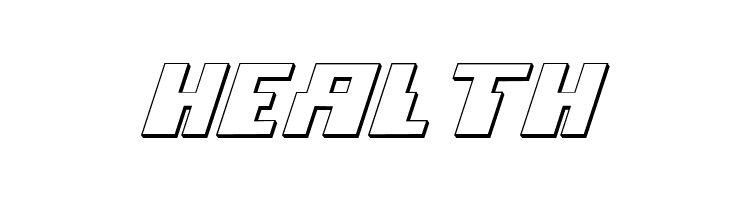
Planetary Orbiter Bold Italic Font
A bold, 3D italic font with a geometric and futuristic style.
A bold, geometric font with a modern, digital aesthetic.
A bold, expanded, and italicized font with a futuristic and angular design.
A futuristic, bold, and expanded italic font with sharp geometric angles.
A futuristic, 3D italic font with bold outlines and geometric shapes.
A bold, angular font with a futuristic and geometric design.
A futuristic and geometric font with bold strokes and unique character shapes.
A bold, condensed, and geometric font with a modern style.